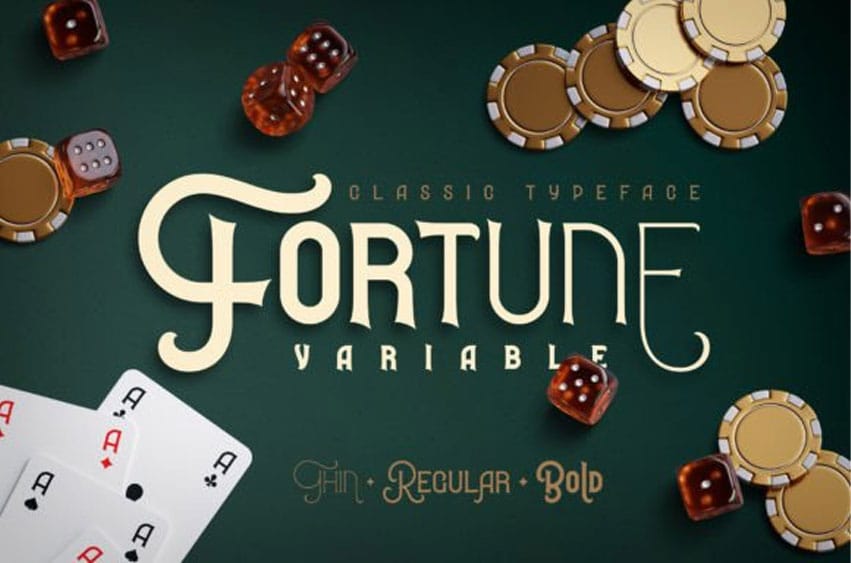
Fortune Variable Font is a stunning vintage display font that’s perfect for adding a touch of retro charm to any design project.
With its bold lines, elegant curves, and timeless appeal, this font is sure to capture attention and evoke a sense of nostalgia. Ideal for branding, packaging, posters, and more.